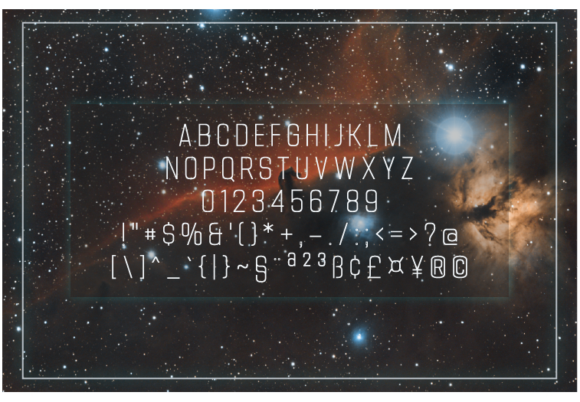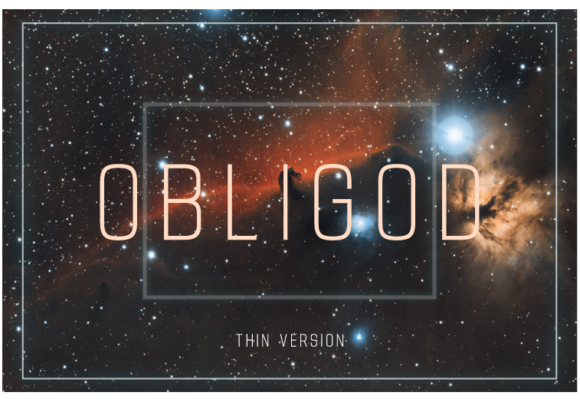
Introduction to Obligod Outline Thin Font
Obligod Outline is a distinct, elegant sans serif font that blends traditional influences into a contemporary aesthetic.
It will look particularly adept when used in logos, branding, packaging design, and much more .